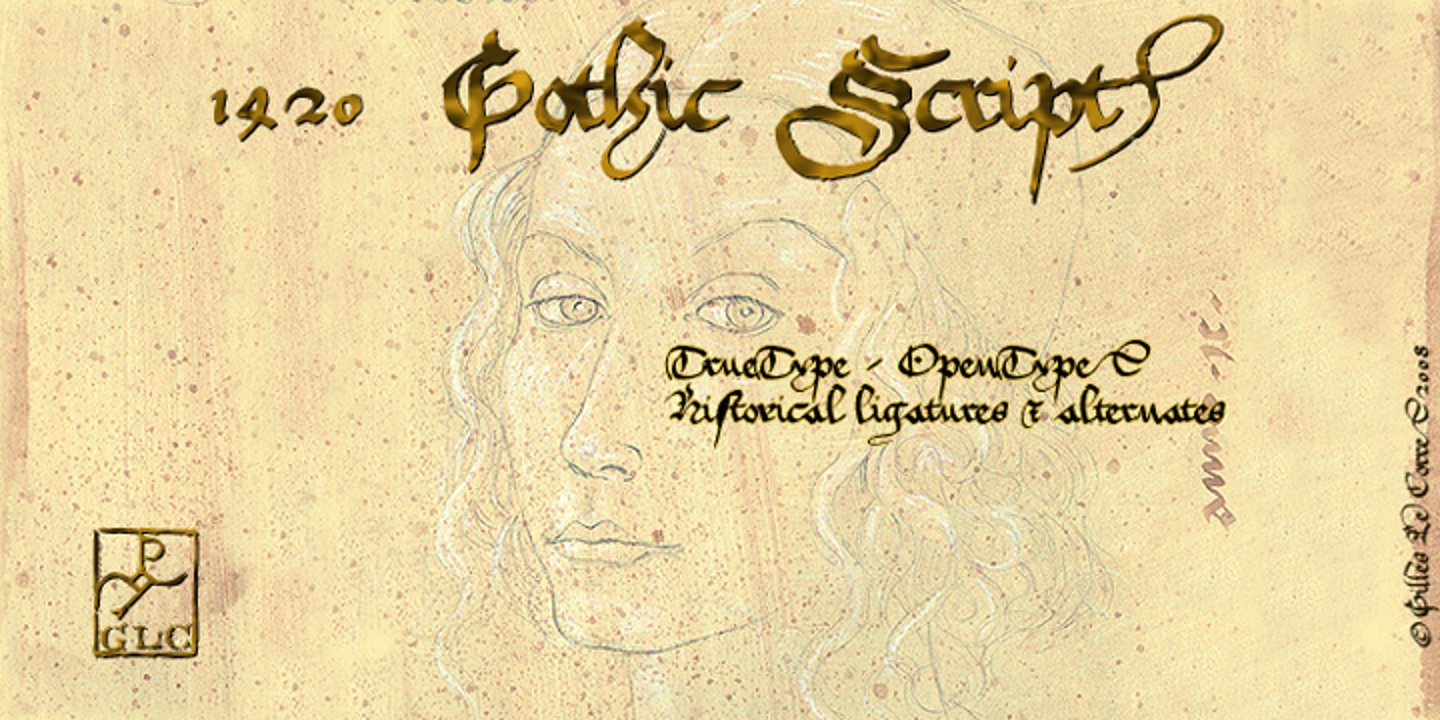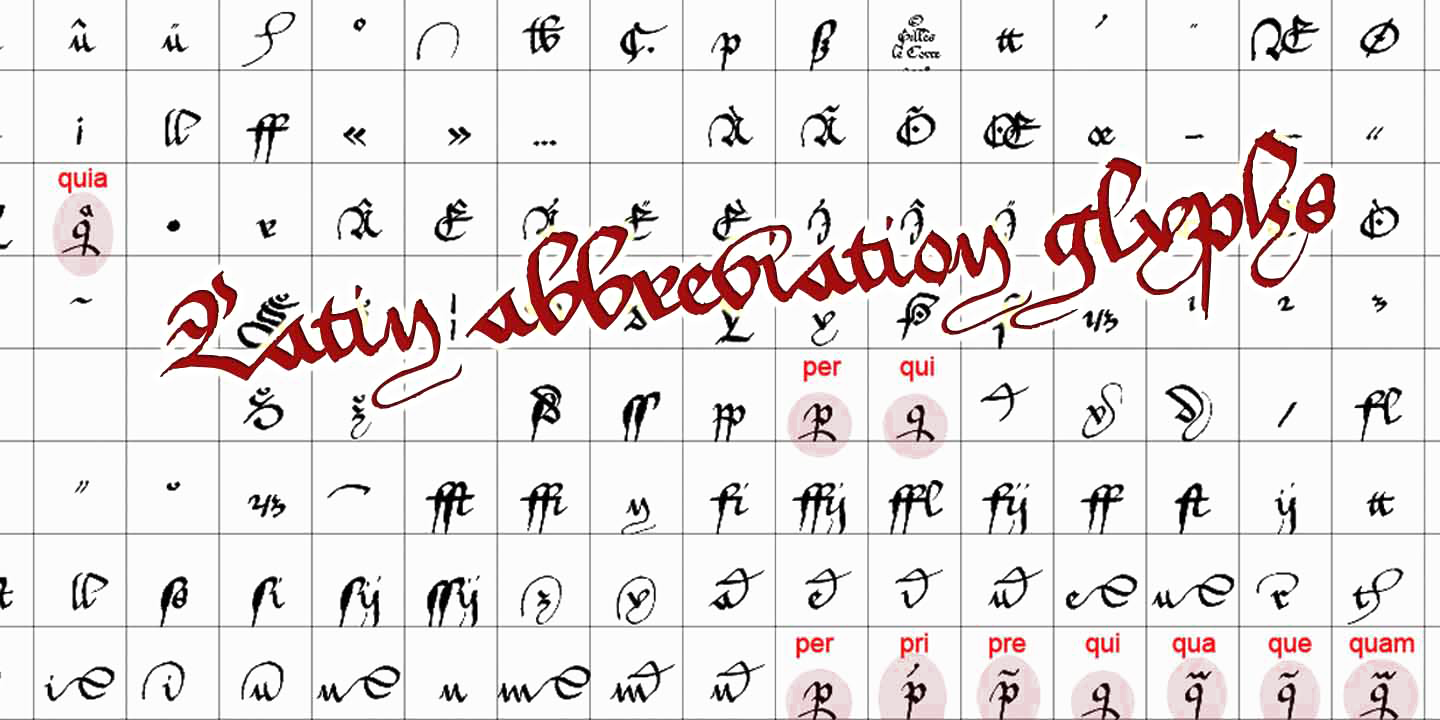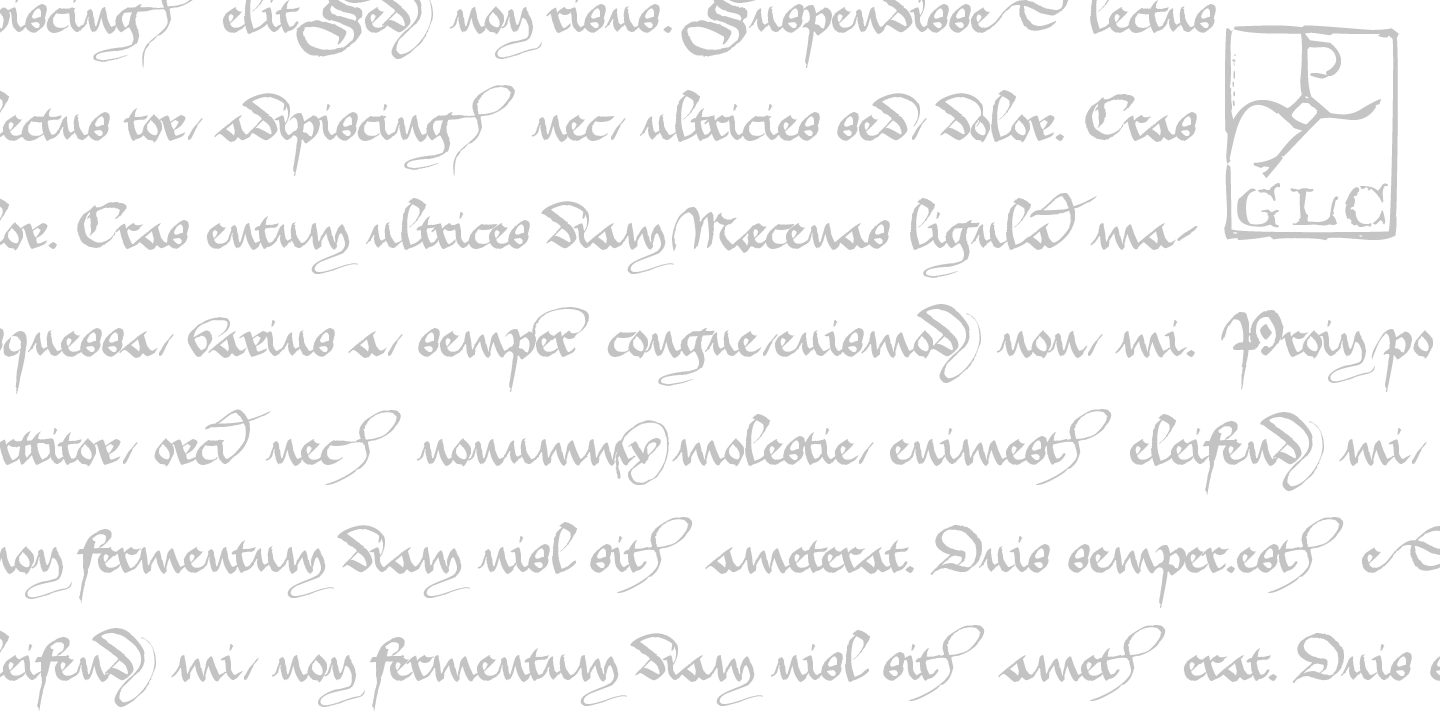
This script font was inspired by the type most commonly used during the period 1300s to 1500s. It is a compromise between historic truth and contemporary use. We particularly thank very much the Paris Sorbonne University professor who gave us freely and patiently numerous and valuable advice and criticism for this work. This font includes “long s”, naturally, as typically medieval, a lot of ligatures as “ff, ffi, fi, ft, sd, pp...”, some special glyphs frequently used as abbreviation in Latin texts during the medieval era for replacing letter groups such as “qui, qua, que, quia, quam, per, pri, pre...”, but also a few final and initial characters and final addable loops. Instructions for use, added, helps to identify them on keyboard. It can be used for web-site titles, posters and fliers design, editing ancient texts or greeting cards, all various sorts of presentations, as a very decorative, elegant and luxurious font... This font remains clear and easy to read over a wide range of sizes. Its original medieval size is about 18/24 points.